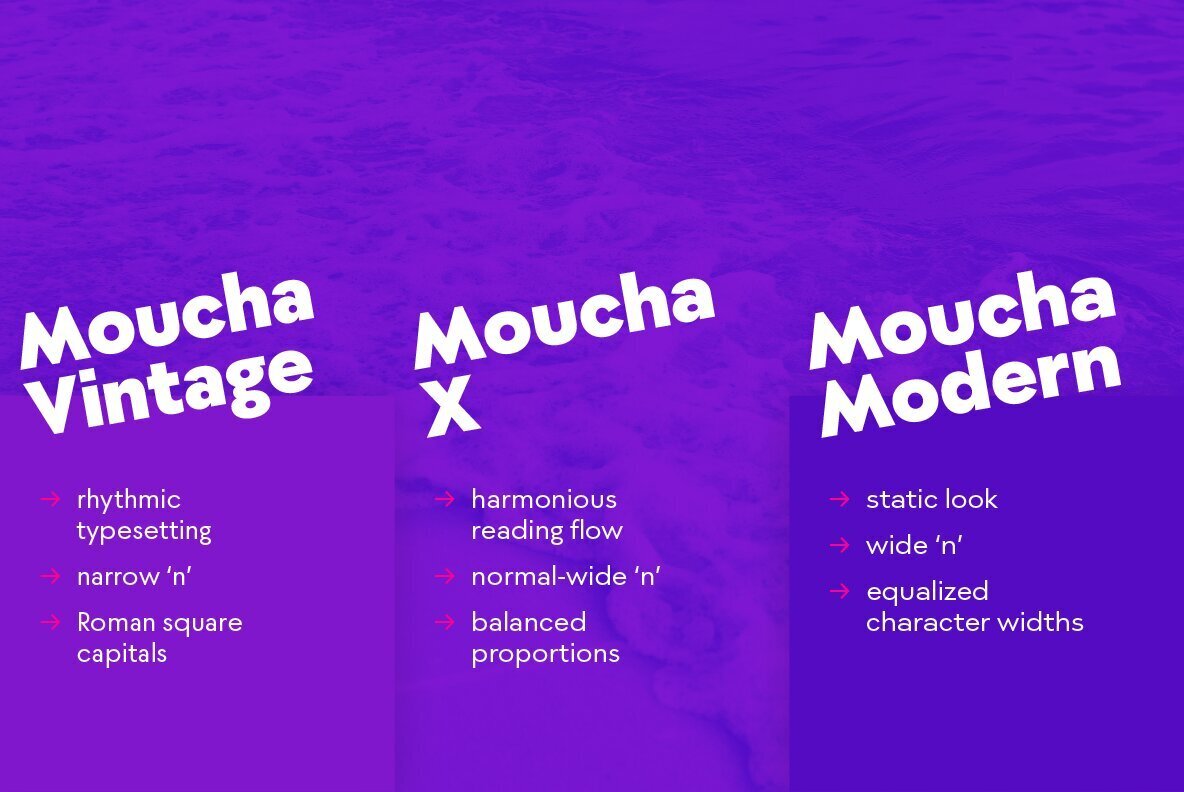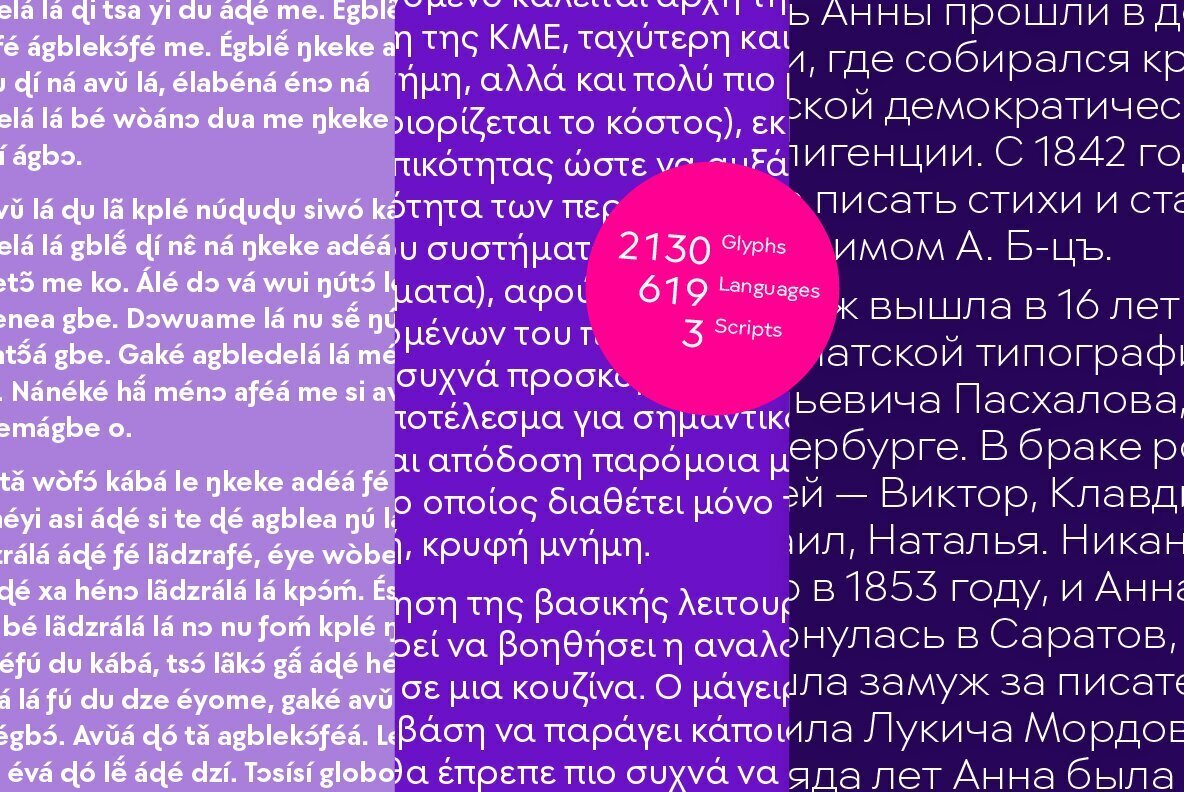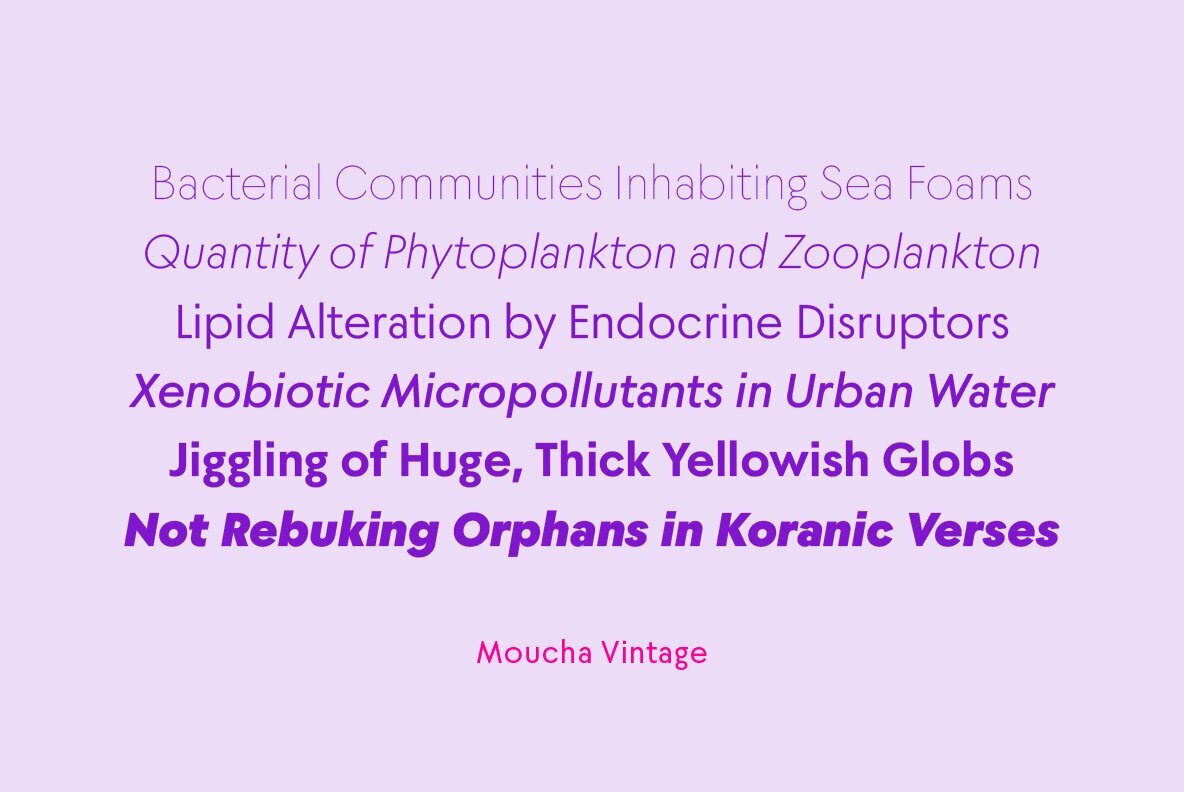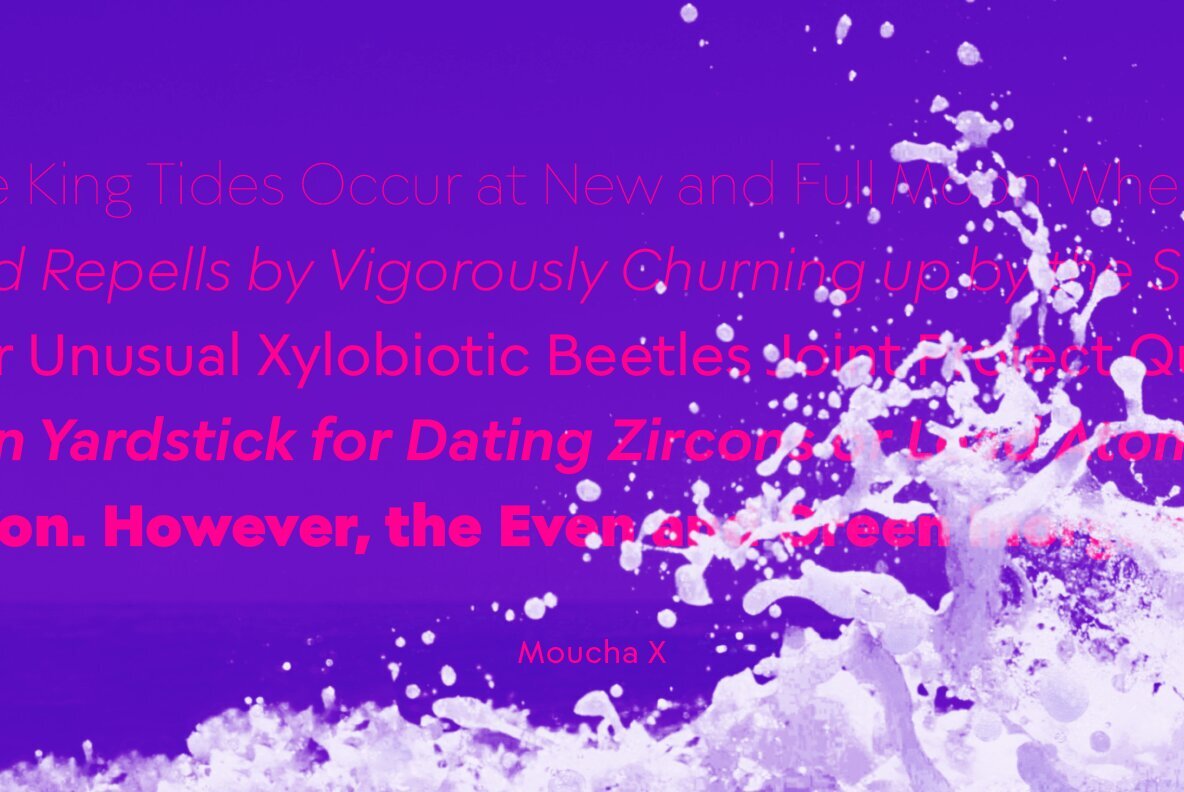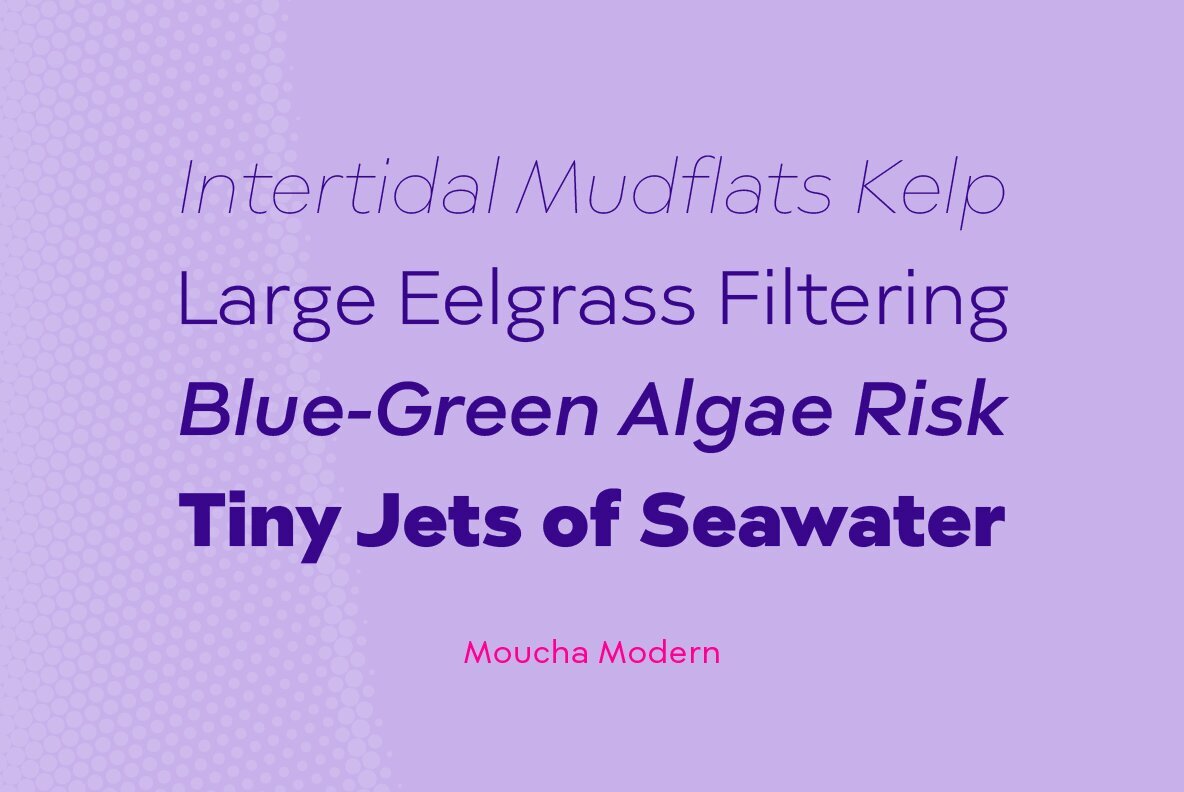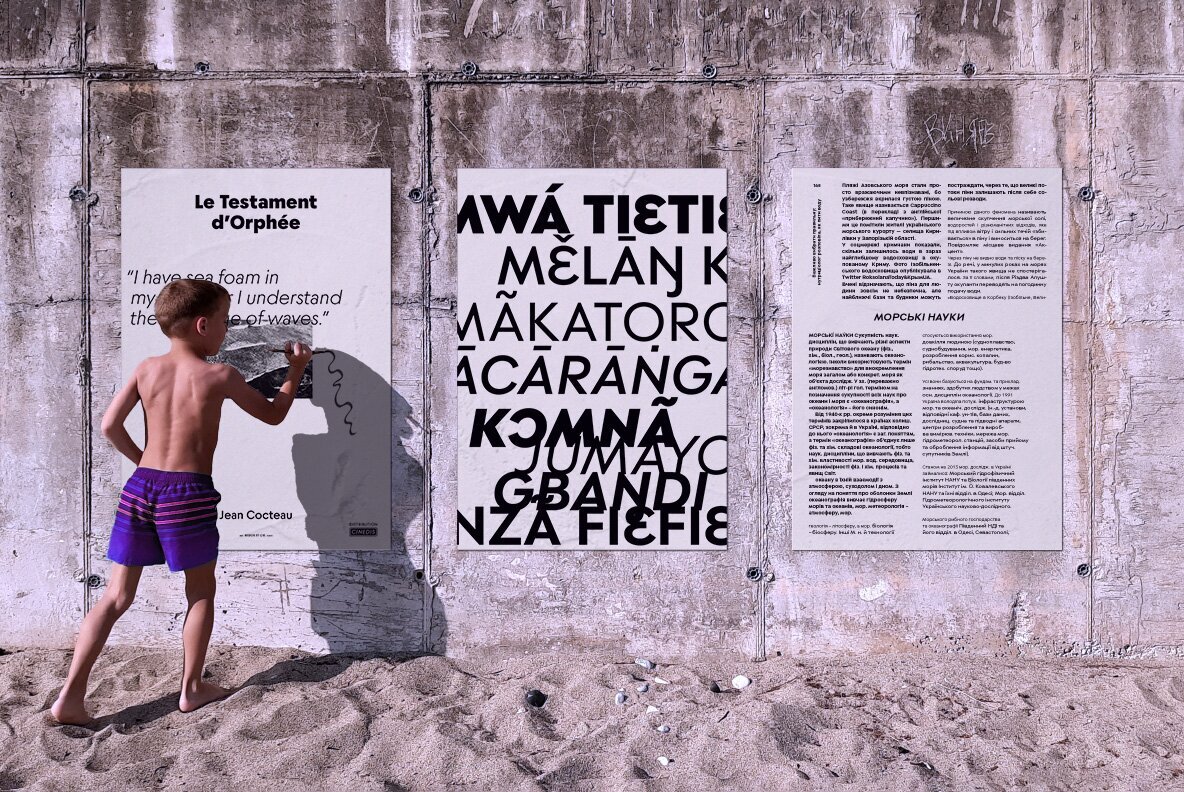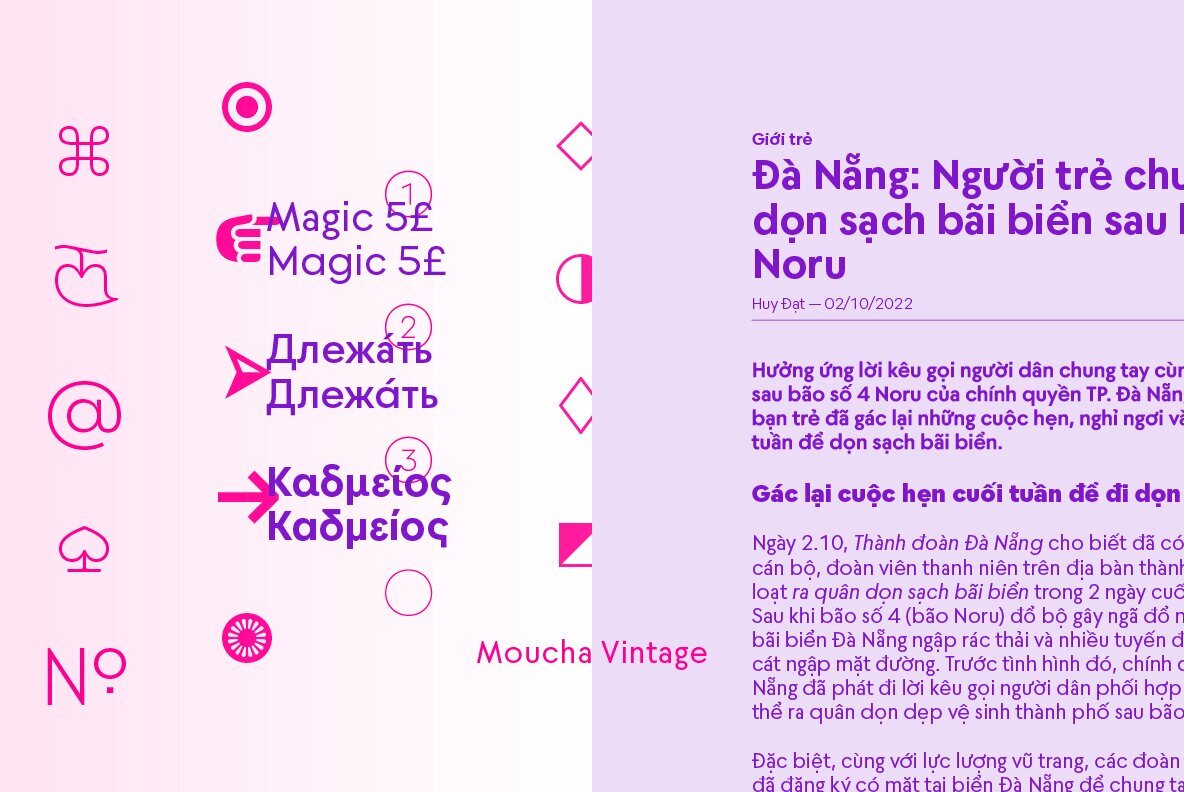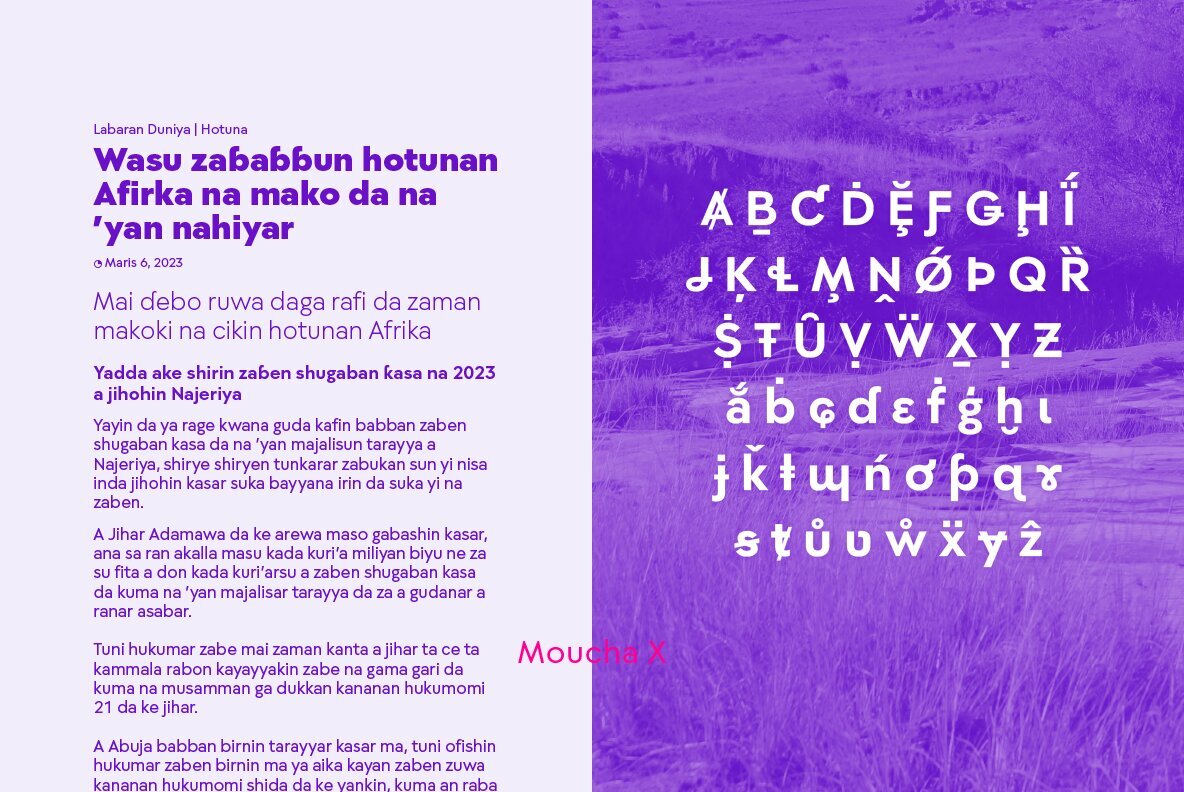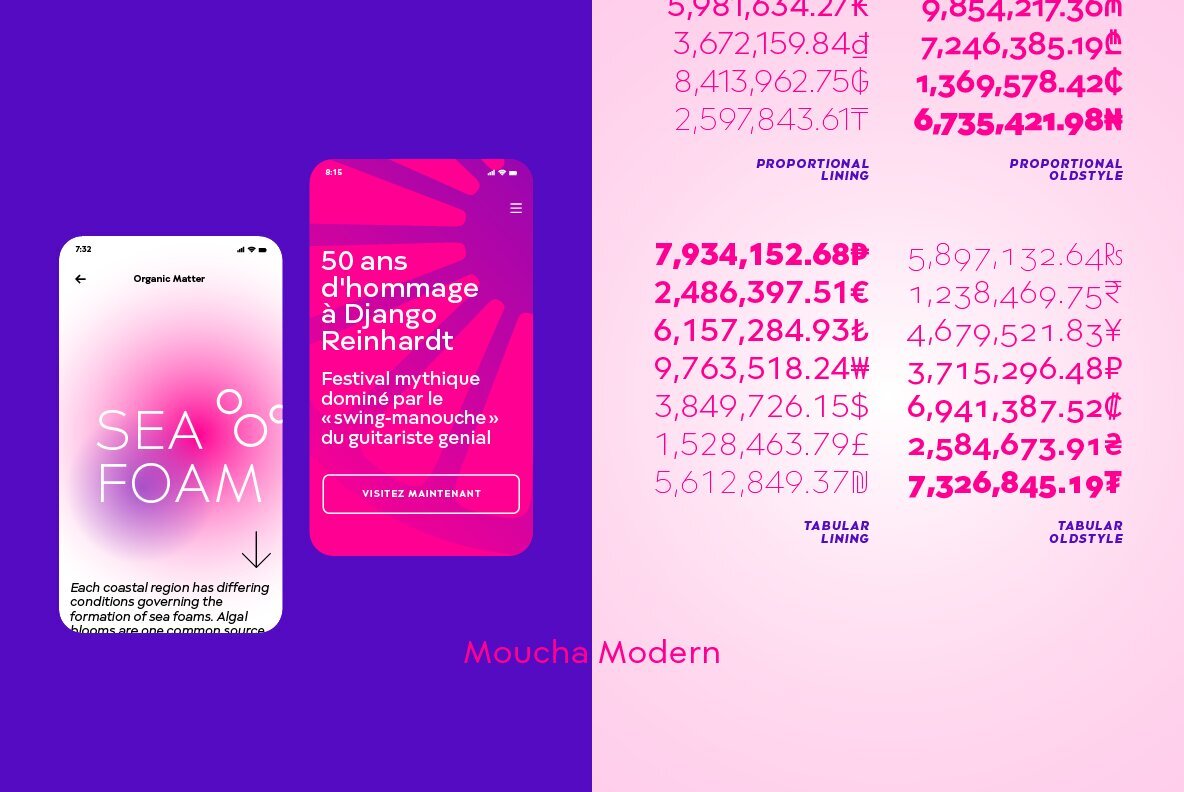
Moucha Font
Moucha is a geometric superfamily that received the German Design Award 2024 for its multitude of variants. Find a vintage and a modern variant and play with all the proportions in between. The variable font is your typographic toolbox with the perfect sans-serif match for your favorite serif. It supports 619 Latin, Cyrillic and Greek languages. How it works: All variants share the same round characters while rectangle-based characters vary in width. Do you want a dynamic classic look with a narrow ‘n’ and uppercase proportions like you know from prototypes like Futura®? Or do you prefer a homogenous contemporary look? Use Moucha X for the exact middle or bubble up your own variant!